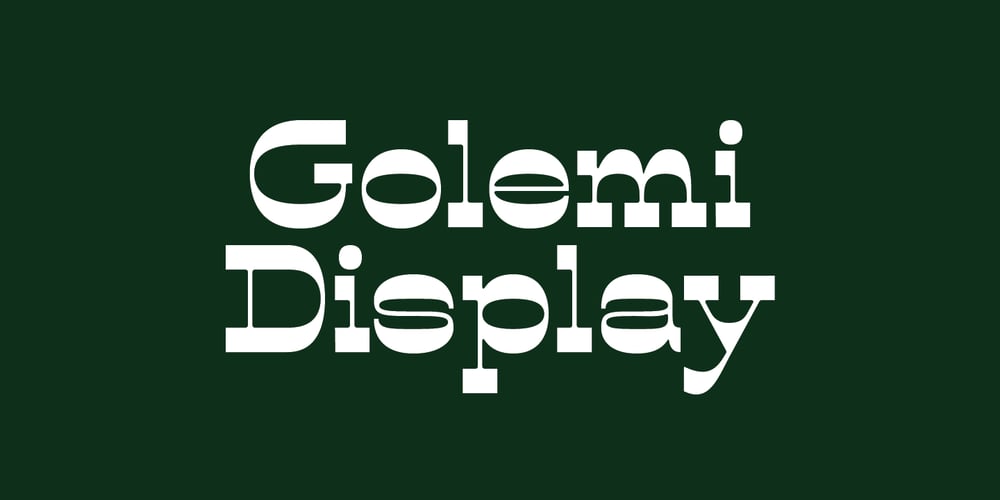
Golemi Display Font Family was designed by Sihan Wu and published by Sihan Wu. Golemi Display contains 1 styles and family package options. Golemi Display is a reverse-contrast fat face font inspired by the Caslon Italian specimen from 1821. It is intentionally designed to keep its wood type feel—the overall chunky body with rounded junctures to imitate the old look. However, compared to its prototype, Golemi is redrawn to have smoother shapes with a modern look. Golemi Display is suitable for large applications, such as headlines for editorial design, branding, webpages, and environmental design. It is currently a single styled typeface disposed for extension.